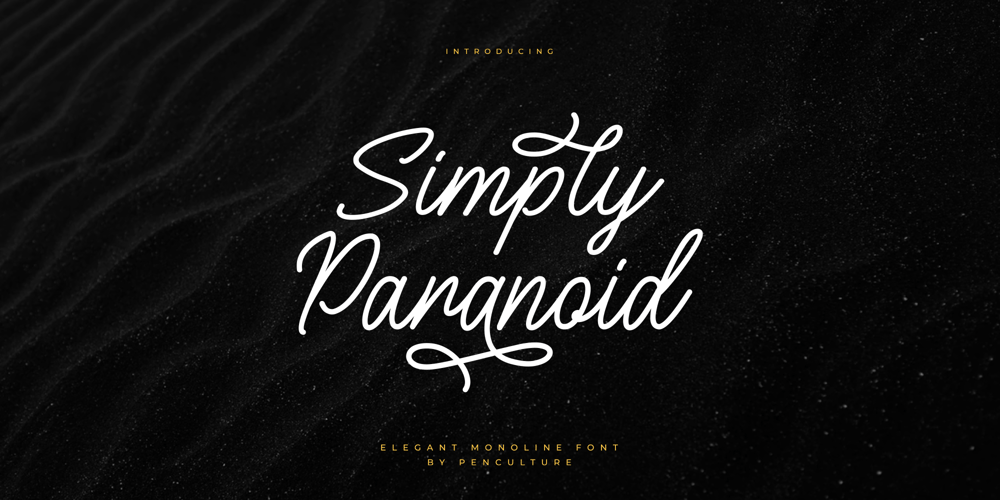
Simply Paranoid Font Family was designed by Revo Farsiky and published by Pen Culture. Simply Paranoid contains 1 styles and family package options. Simply Paranoid is elegant monoline font that comes with various kinds of alternate that will make design very awesome and elegant Feature and what will you get: Uppercase and lowercase Number Punctuation Multilingual support Beautiful alternate Please fell free to contact me on Hipenculture@gmail.com if you have any question Thank you